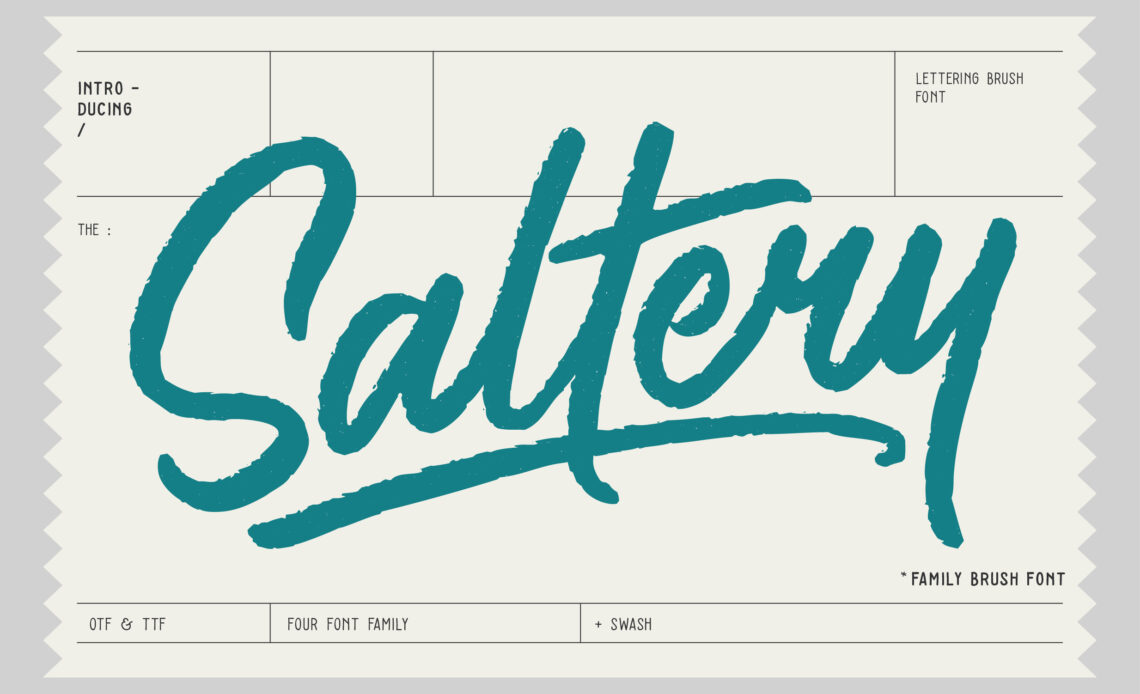
Introducing Saltery Font: Your Gateway to a World of Creativity
Embark on a typographic adventure with Saltery Font, a captivating creation from the visionary minds at Pana Type. This script font is a modern marvel, exuding a refreshing aura that will breathe life into your design projects. It's like a breath of fresh air, bringing a touch of casual elegance to all your creative endeavors.
Saltery Font: A Symphony of Style
This modern script font is a symphony of style, effortlessly blending sophistication with playfulness. Its graceful curves and dynamic strokes bring a touch of artistry to your designs, capturing the essence of handwritten beauty. Saltery Font isn't just a font; it's an experience, a journey into the realm of typography where imagination knows no bounds.
Masterpiece Creations Await
With Saltery Font as your creative companion, you'll find yourself crafting masterpieces that captivate and inspire. Its versatility shines through, adapting seamlessly to a myriad of design projects. From eye-catching logos that demand attention to breathtaking wedding invitations that evoke timeless elegance, Saltery Font is your secret weapon for creating designs that resonate with your audience.
The Perfect Choice for Every Occasion
Whether you're crafting whimsical social media graphics, designing enchanting posters, or adding a personal touch to your branding materials, Saltery Font rises to the occasion. It's the perfect choice for those seeking a font that embodies both modernity and timeless charm. With Saltery Font, your designs will stand out from the crowd, leaving a lasting impression that speaks volumes about your creativity and attention to detail.